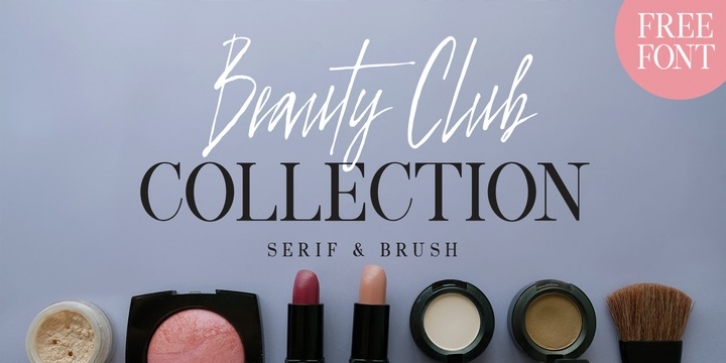
"Beauty Club is a modern font collection that includes four serif weights, a thin signature brush script and free marketing words.
Beauty Club Brush is a hand-painted script that includes 7 ligatures and 26 alternates. The brush script works great paired with the serif fonts.
Try the Beauty Club free font for beauty marketing and social media. It's a great font for promoting your beauty brands.
FREE WORDS FEATURES: 57 free words useful for beauty marketing and social media promoting. Keyword examples include beauty, makeup, free, love and sale. Intended use for: beauty, fashion, apparel, marketing, music, social media, websites, magazines, sales, film and packaging.
BRUSH SCRIPT AMERICAN (US) Shorter version Thin hand-painted brush script 7 ligatures and 26 alternates OpenType Includes the common alphabet, numbers, American symbols and punctuation.
BRUSH SCRIPT EXTENDED LATIN PRO (Standard) Extended version of the American (US) version. Thin hand-painted brush script 7 ligatures and 26 alternates OpenType Includes Latin Pro characters for Albanian, Basque, Catalan, Cornish, Croatian, Czech, Danish, Dutch, English, Esperanto, Estonian, Feroese, Finnish Scots, French, Gaelic, Galician, German, Greek Transliterated, Hawaiian, Hungarian, Icelandic, Indonesian, Irish, Italian, Latvian, Lithuanian, Maltese, Nynorsk Bokmal Norwegian, Polish, Portuguese, Romanian, Slovak, Slovenian, Spanish, Swedish, Turkish, Welsh.
SERIF AMERICAN (US) Shorter version OpenType Includes the common alphabet, numbers, American symbols and punctuation.
SERIF EXTENDED LATIN PRO (Standard) Extended version of the American (US) version. OpenType Includes Latin Pro characters for Albanian, Basque, Catalan, Cornish, Croatian, Czech, Danish, Dutch, English, Esperanto, Estonian, Feroese, Finnish Scots, French, Gaelic, Galician, German, Greek Transliterated, Hawaiian, Hungarian, Icelandic, Indonesian, Irish, Italian, Latvian, Lithuanian, Maltese, Nynorsk Bokmal Norwegian, Polish, Portuguese, Romanian, Slovak, Slovenian, Spanish, Swedish, Turkish, Welsh.
DISPLAY- Pair the Beauty Club brush script with the serif fonts as large headline text for optimization.
FONT USE- Use Beauty Club for beauty, fashion, apparel, marketing, music, social media, websites, magazines, sales, film and packaging."